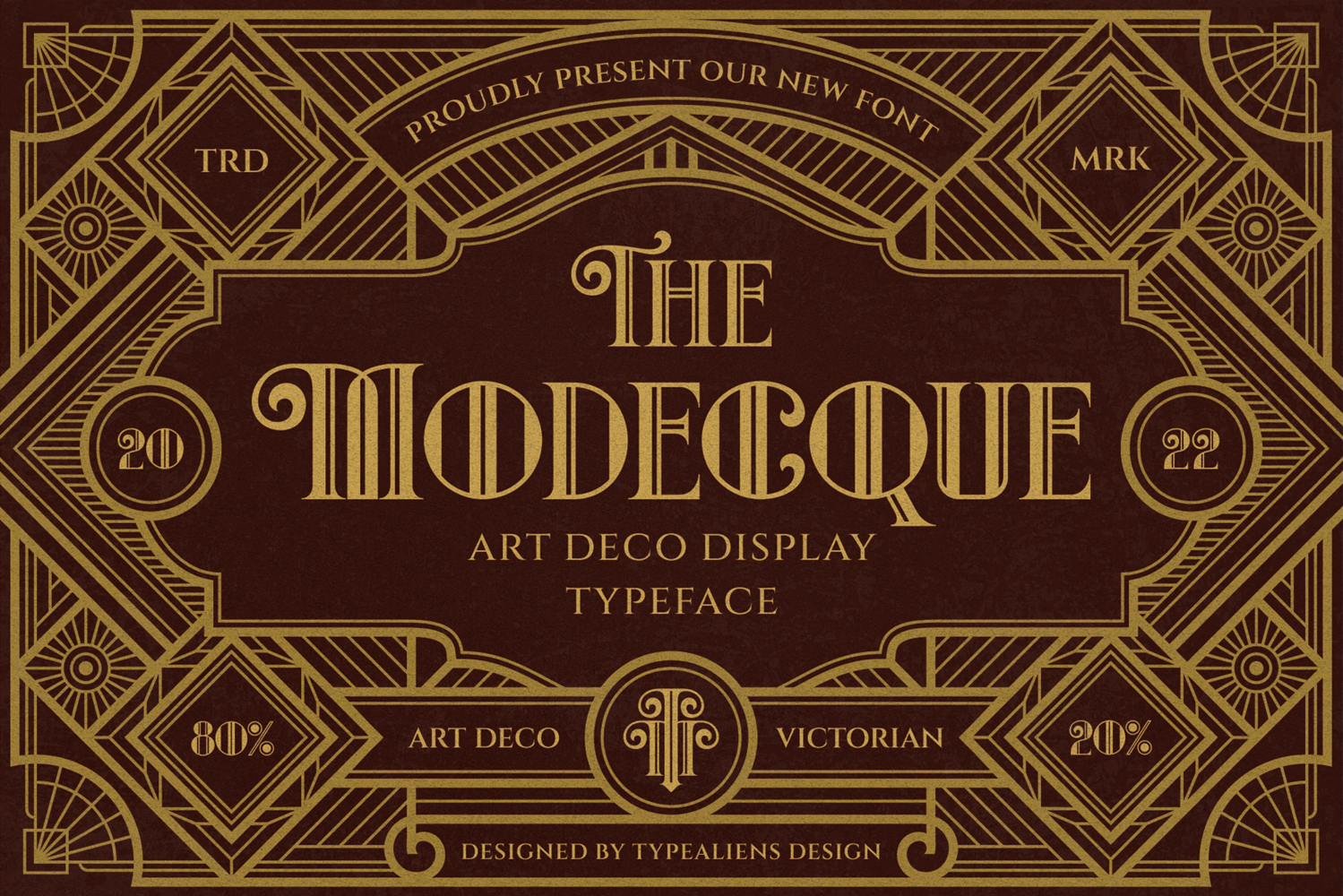
Created By llhamtaro
Modecque
Modecque is a cross between Victorian and art deco fonts, this font will become a new and interesting trend to explore in a design, elegant Victorian is made a little more masculine due to the influence of art deco, resulting in a slightly elegant but elegant font. Fonts that still match the art deco style but have a slight touch of grace, will be suitable for classic but elegant designs.